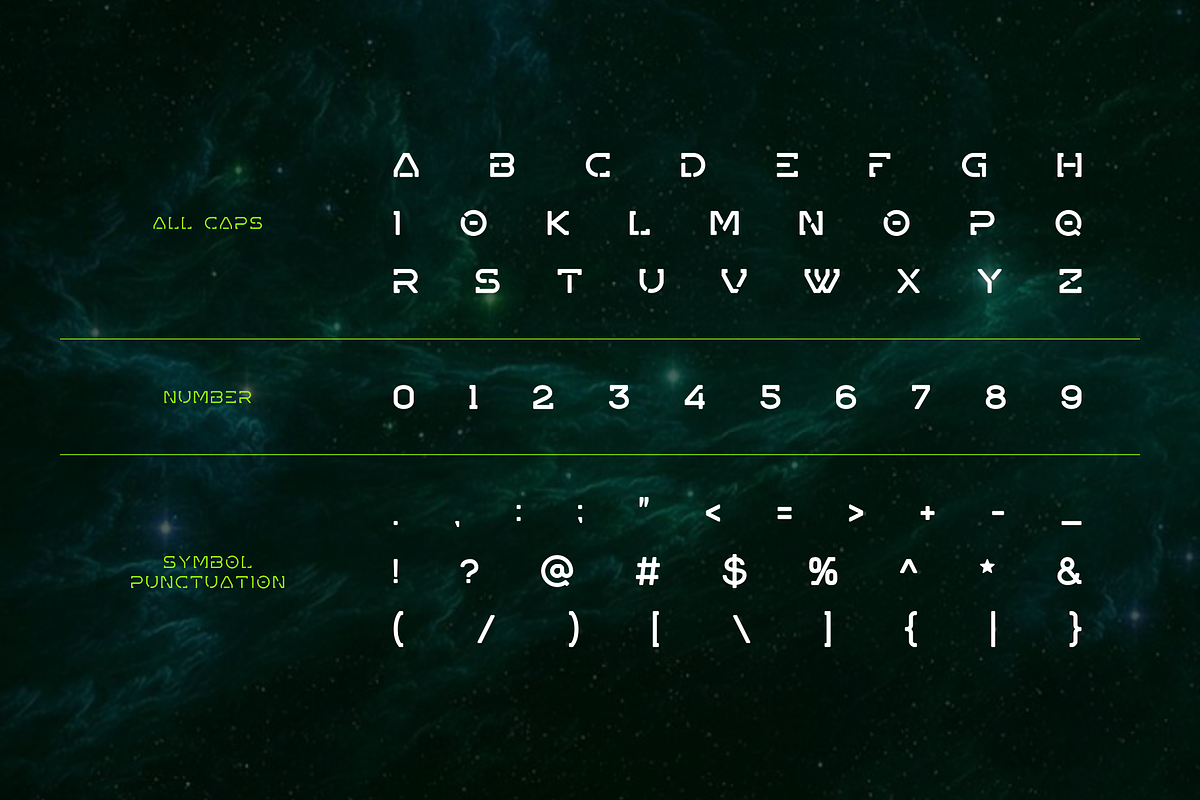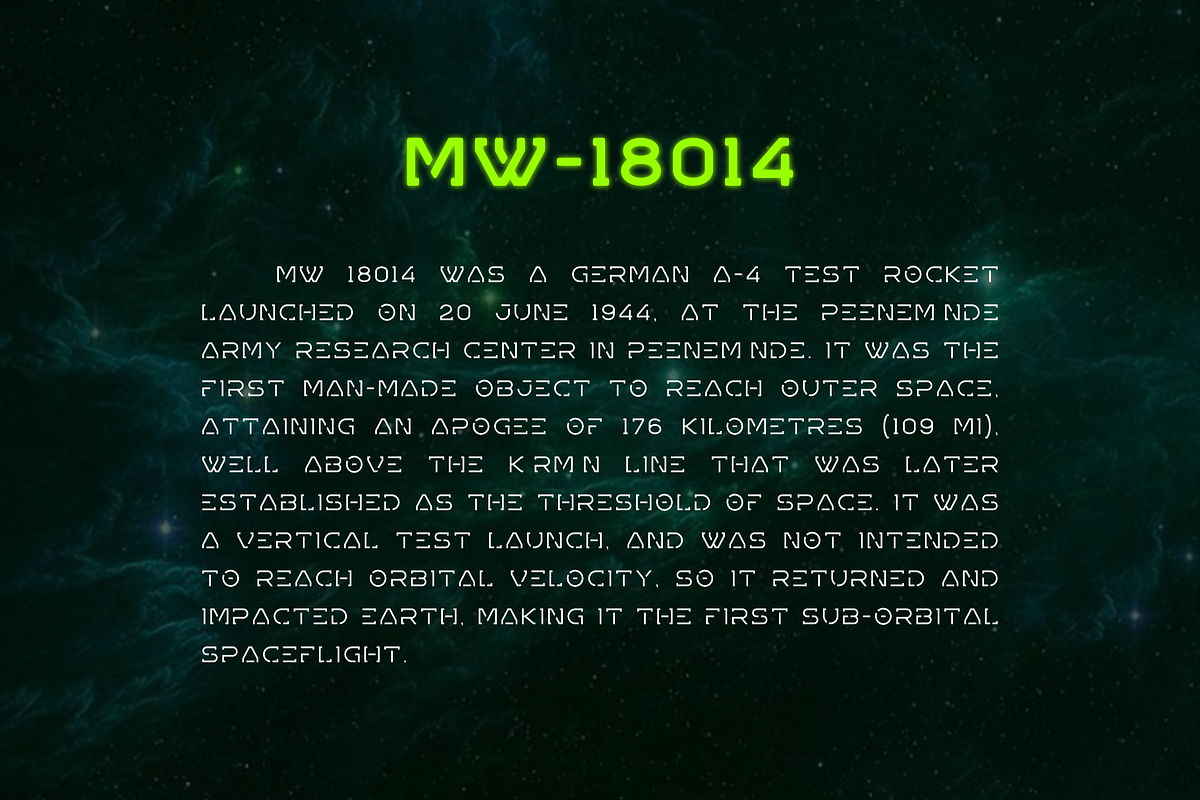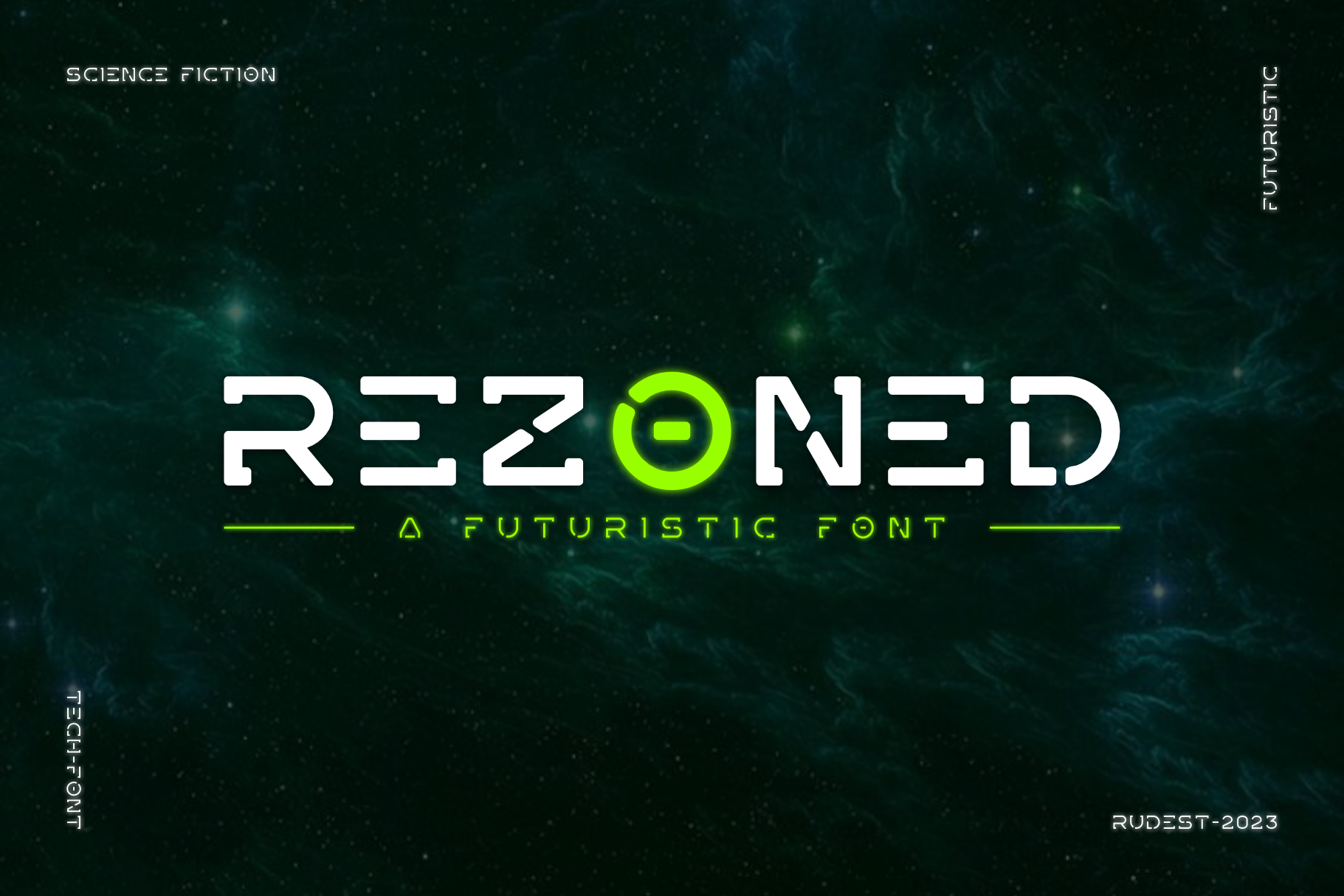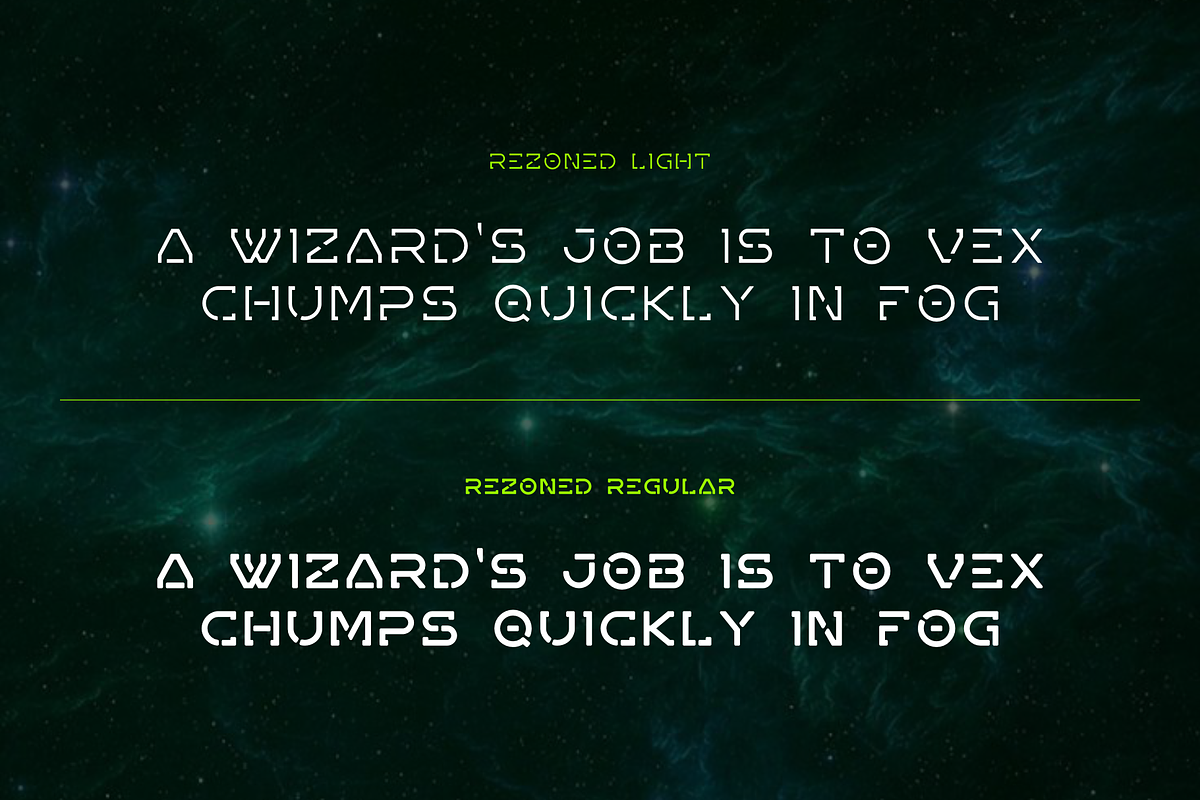
Rezoned - Futuristic Font
Introduce my new font called Rezoned. A futuristic font inspired by science fiction movies and books. Minimalistic is the main style for this typeface also give more modern and elegant look. This font is suitable for various purpose such as movies, posters, logos, labels, and any modern purposes.
Font Styles :
- Rezoned Light
- Rezoned Regular
- All Caps
- Punctuations